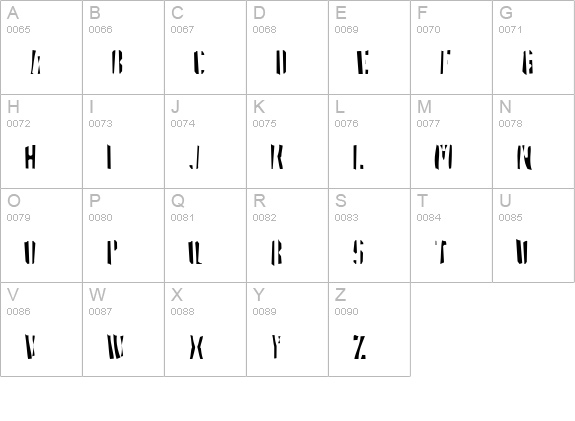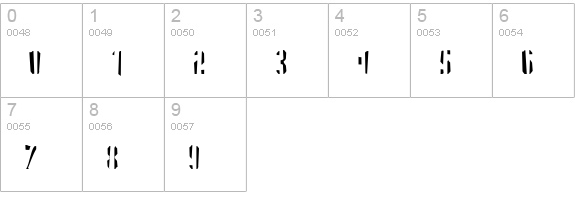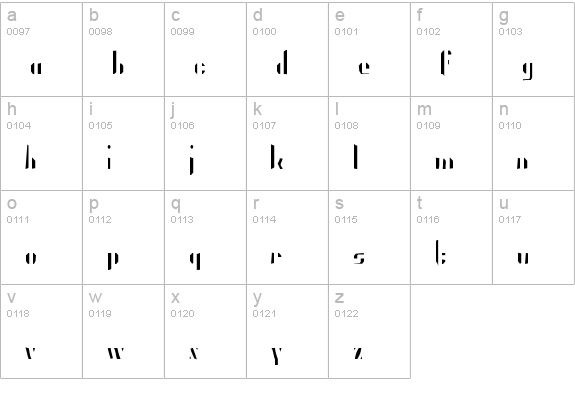
President Gas Gaunt Font Details
President Gas Gaunt font is a striking and modern typeface that exudes authority and sophistication. With its clean lines and bold presence, this font commands attention and makes a powerful statement. The sleek and professional design of President Gas Gaunt font is perfect for corporate branding, editorial design, and any project that requires a touch of elegance. What makes President Gas Gaunt font even more appealing is that it is available for free download at FontsMarket.com. This means that you can easily access this high-quality font and use it in your projects without any cost. Don't miss the opportunity to enhance your designs with the impactful President Gas Gaunt font - download it today and elevate your typography game!